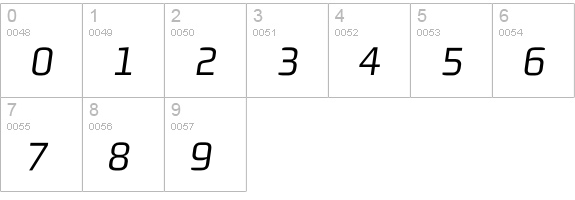
MorganSnLining Oblique Font Details
MorganSnLining Oblique is a distinctive, italic variant in the MorganSnLining typeface family \xE2\x80\x94 well suited to design and typography projects.
MorganSnLining Oblique font is a stylish and modern typeface that exudes sophistication and elegance. With its unique oblique design, this font adds a touch of flair to any project, making it perfect for branding, logo design, and editorial layouts. The sleek lines and subtle curves of MorganSnLining Oblique font give it a dynamic and versatile feel, making it suitable for a wide range of design applications. Best of all, MorganSnLining Oblique font is available for free download at FontsMarket.com. Whether you're a professional designer looking to enhance your projects or a hobbyist seeking to add a touch of creativity to your work, this font is a must-have in your collection. Don't miss out on the opportunity to elevate your designs with the timeless elegance of MorganSnLining Oblique font - download it now and let your creativity shine!